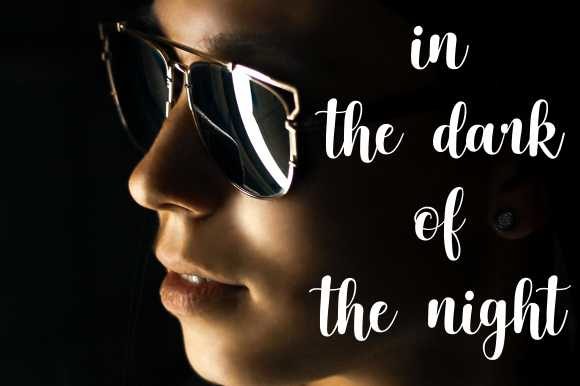
Introduction to Saterdams Font
You’re in the middle of a creative project, pouring over design ideas and trying to find the perfect font to bring your vision to life. Suddenly, you stumble upon a stunning hand-brushed typeface that catches your eye – the Saterdams Font. Its unique style is like nothing you’ve seen before, with intricate details and a level of craftsmanship that’s hard to match.
As a designer, you know that the right font can make all the difference in a project. That’s why the Saterdams Font is such a valuable resource. Its high quality design is perfect for a wide range of applications, from invitations and labels to menus and logos. And with its transparent background, you can easily place it over any image or design element without worrying about clashing colors.
Key Features of Saterdams Font
- High-quality, professional font suitable for various creative projects
- Transparent background, allowing for seamless integration with images and other design elements
- Unique, handcrafted design that adds a touch of elegance and sophistication to any creative project
Honest Review: Saterdams Font
As a designer, I’m always on the lookout for high-quality fonts that can elevate my creative projects. Recently, I stumbled upon the Saterdams Font, and I must say it’s been a game-changer. This font is perfect for any design resource, offering a clean and modern look that’s sure to impress.
Here are some of the things that work well about the Saterdams Font:
- ✨ Clean and modern look that’s sure to impress
- ✨ Versatile font that works well on both light and dark backgrounds
- ✨ Transparent background option for added depth
Of course, like any font, the Saterdams Font has its limitations:
- ⚠️ Limited character set, which may not be suitable for projects that require a wide range of characters
Overall, I’m thoroughly impressed with the Saterdams Font. It’s a high-quality design resource that’s perfect for any creative project. While it may have some limitations, I think the benefits far outweigh the drawbacks. If you’re looking for a new font to add to your design arsenal, I highly recommend giving the Saterdams Font a try.
Designing with Saterdams Font
Saterdams Font is a high-quality design resource ideal for creative projects. With its unique style and transparent background, it’s perfect for adding a touch of sophistication to your designs. To get the most out of this font, follow these steps:
Getting the Most Out of Saterdams Font
To get the most out of Saterdams Font, experiment with different font sizes, colors, and combinations. You can also use it in conjunction with other design elements to create a unique look.
Saterdams Font is perfect for a variety of creative projects, including:
Graphic design
Branding and marketing materials
Web design
Print design
Alternatives to Saterdams Font